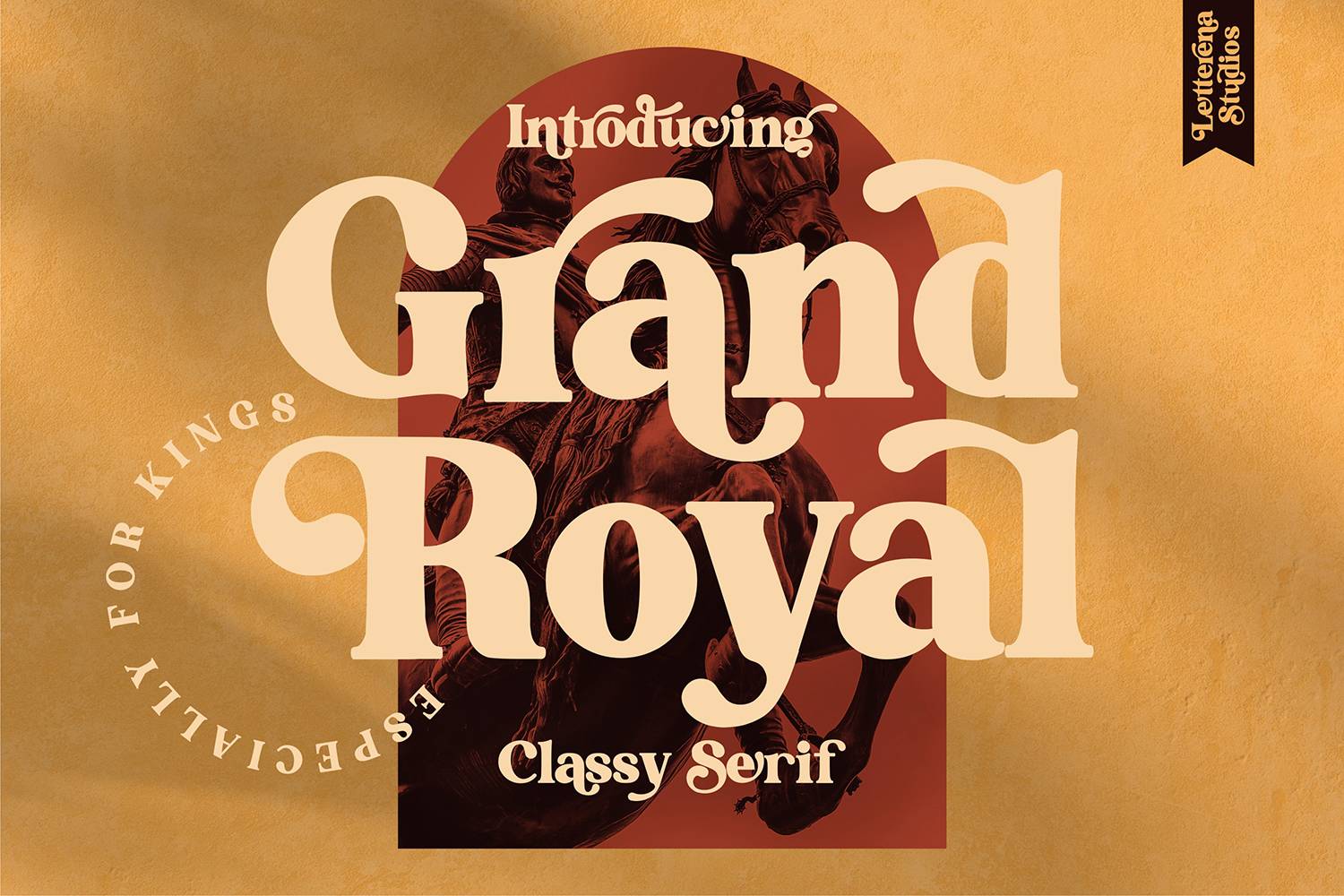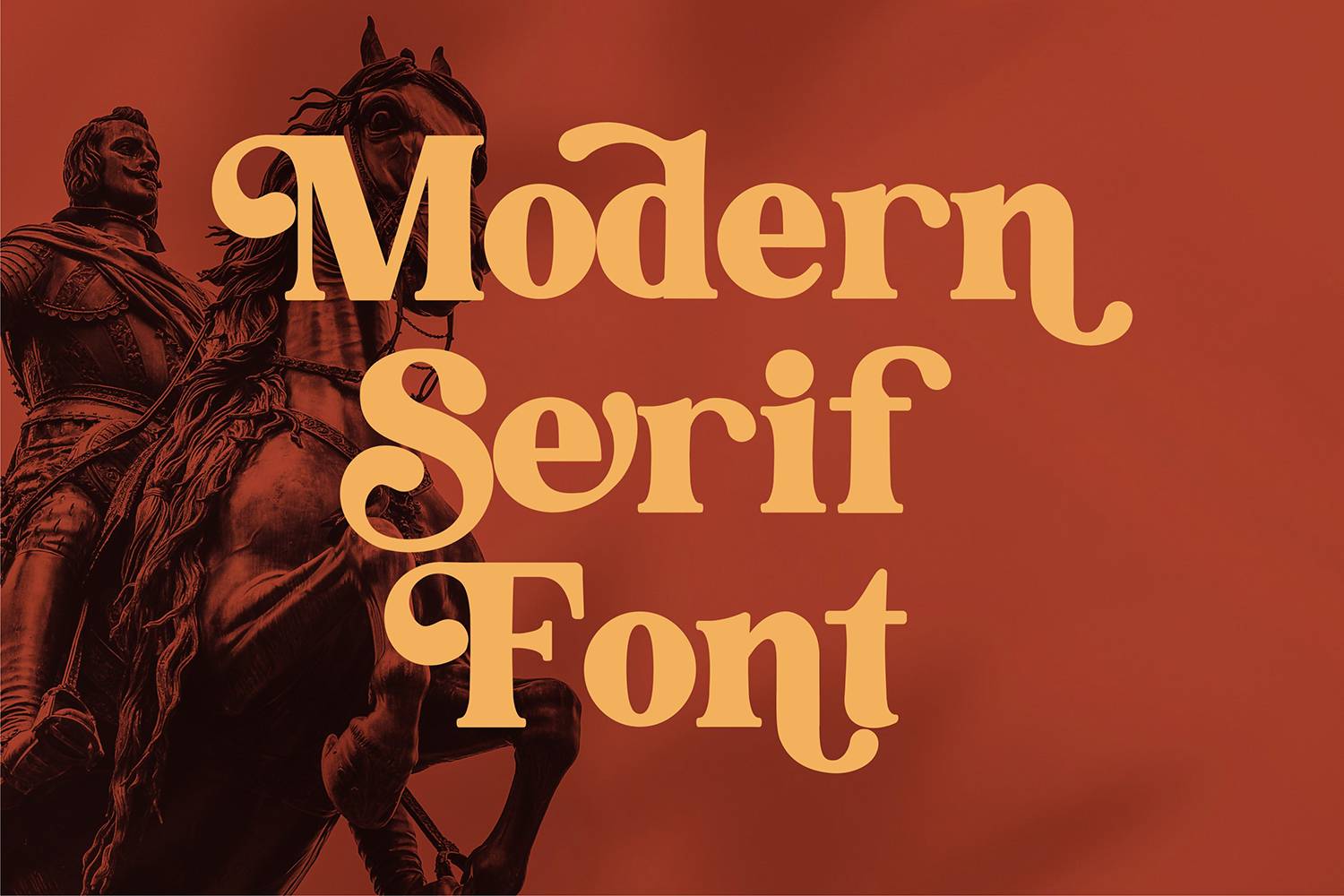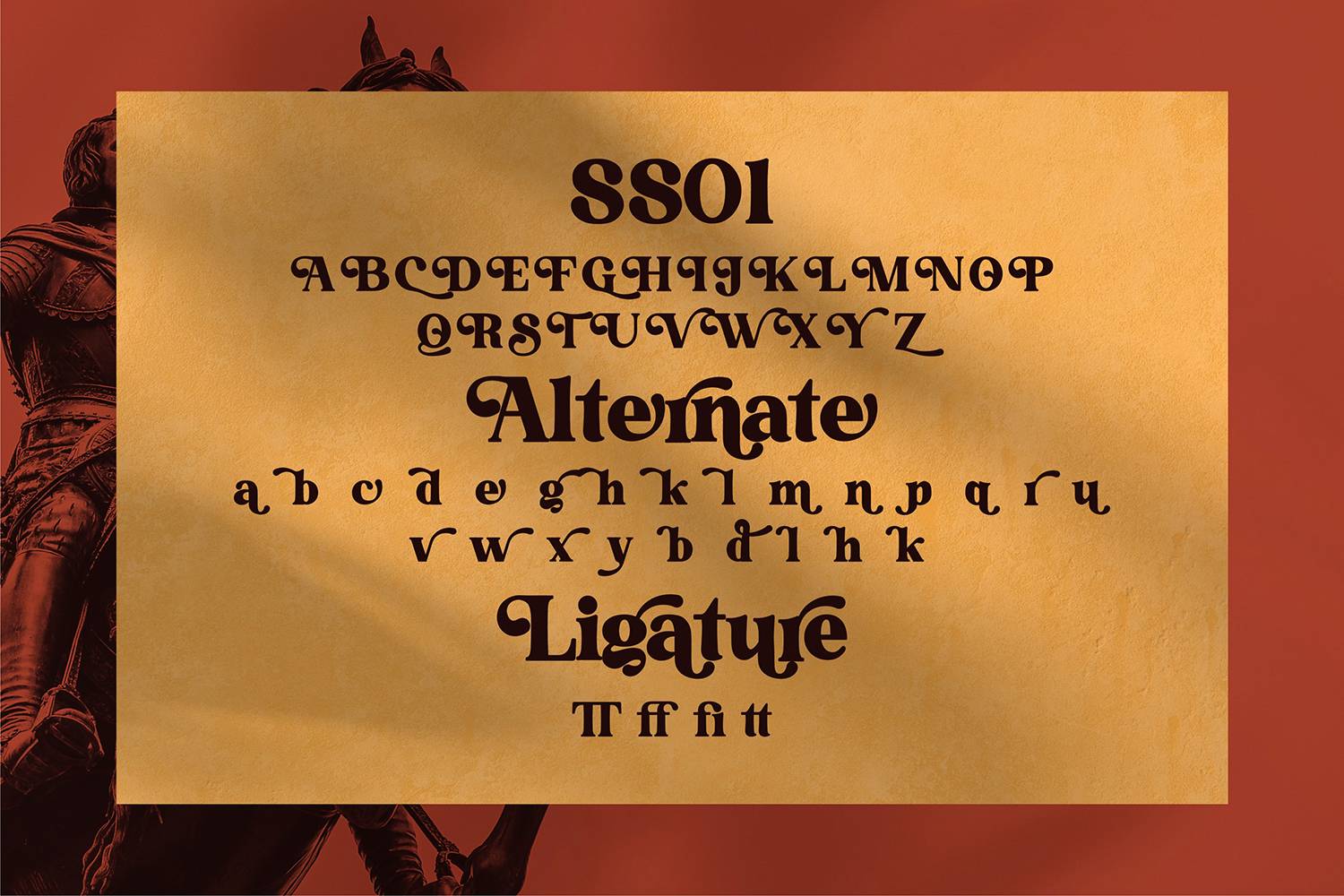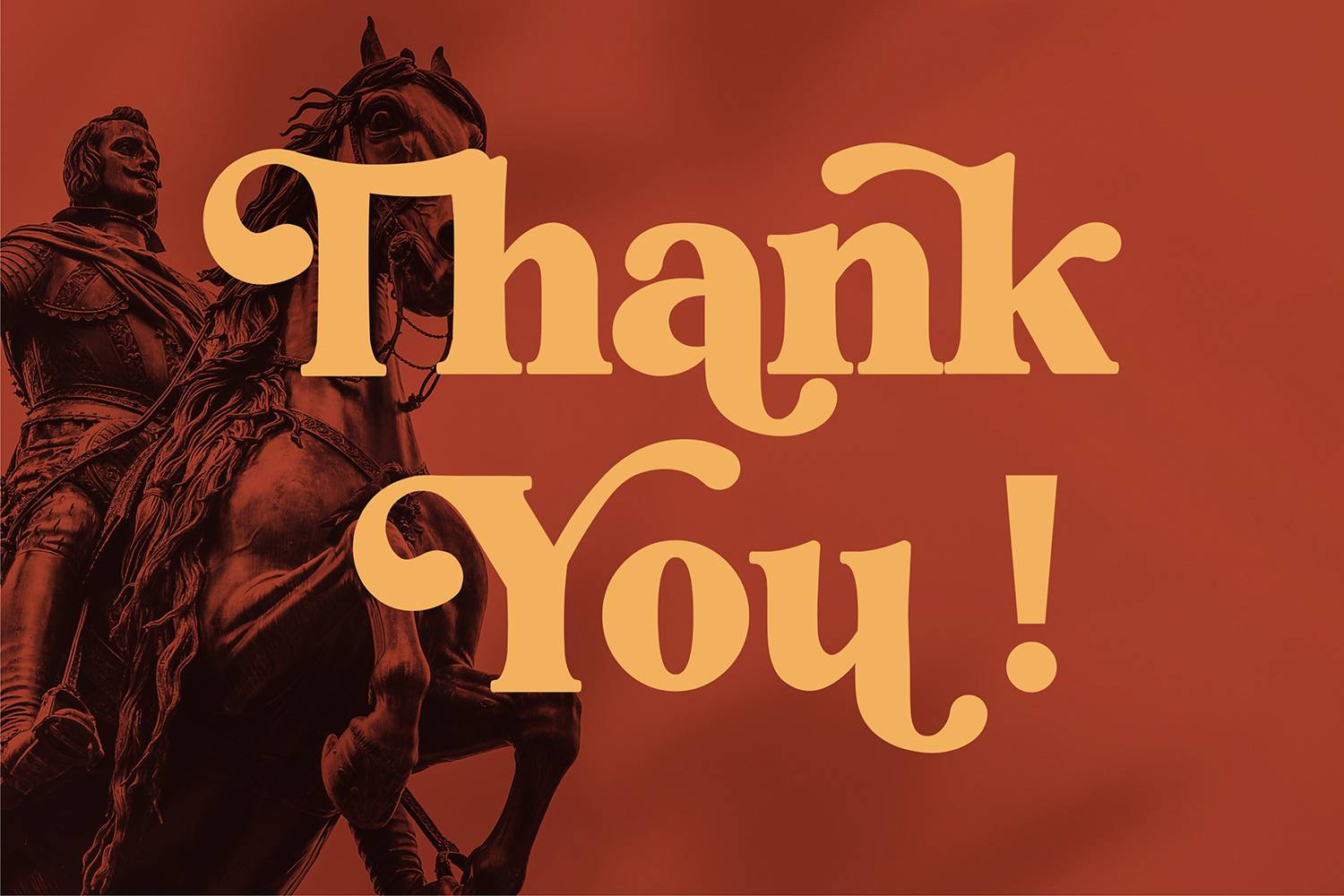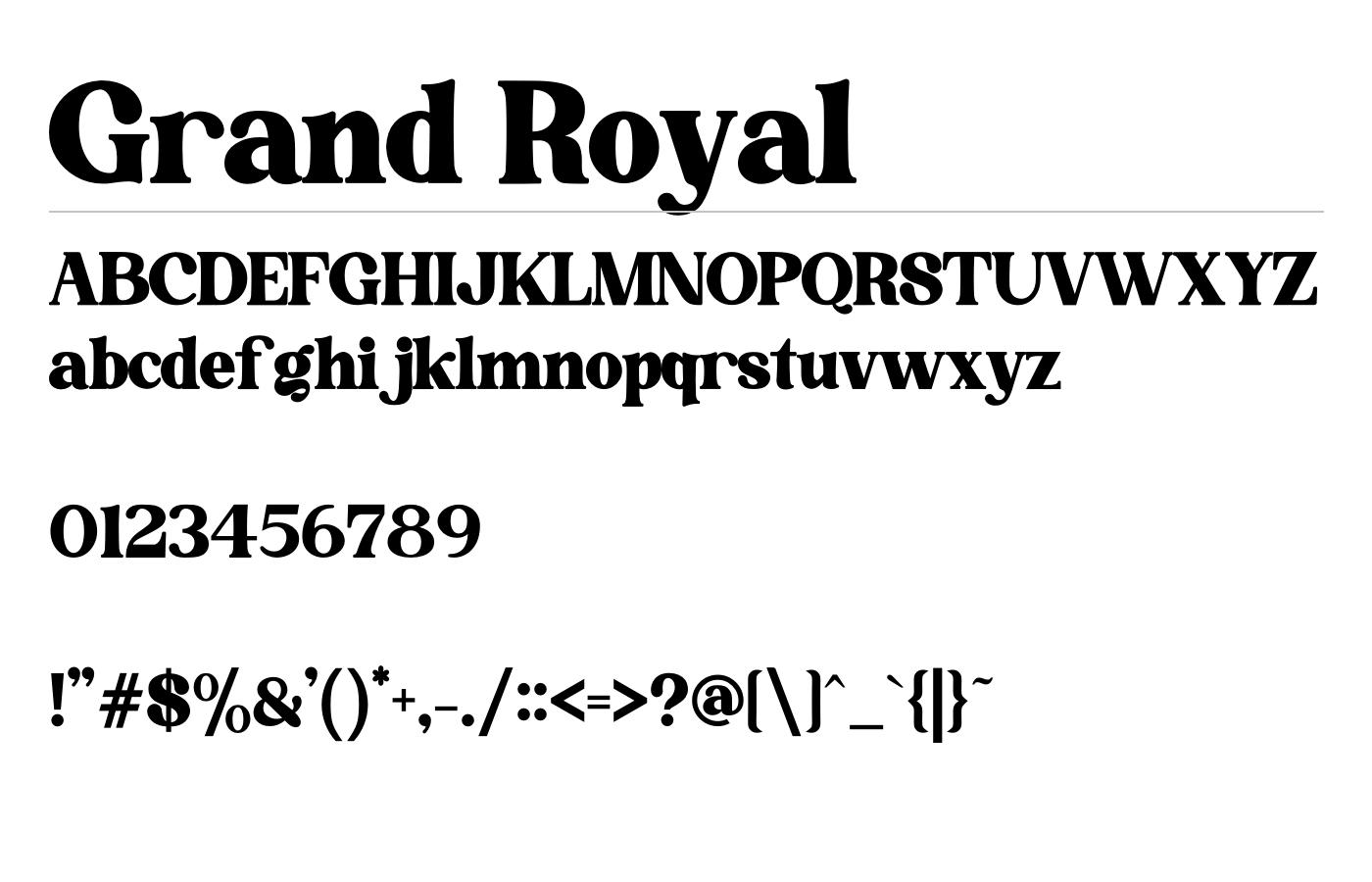
Grand Royal is a bold serif font with a sturdy and refined appearance, featuring high contrast between thick and thin strokes and bracketed, slightly curved serifs that enhance its classic elegance. Its distinct letterforms, such as the single-story 'g' and the prominent tail on the 'Q,' give it a regal and authoritative personality, making it ideal for luxury branding, editorial headlines, and formal invitations. This font works well where a strong yet sophisticated impression is desired, combining traditional charm with clear readability.
Grand Royal Font
About Grand Royal Font
| Font family | Grand Royal Font |